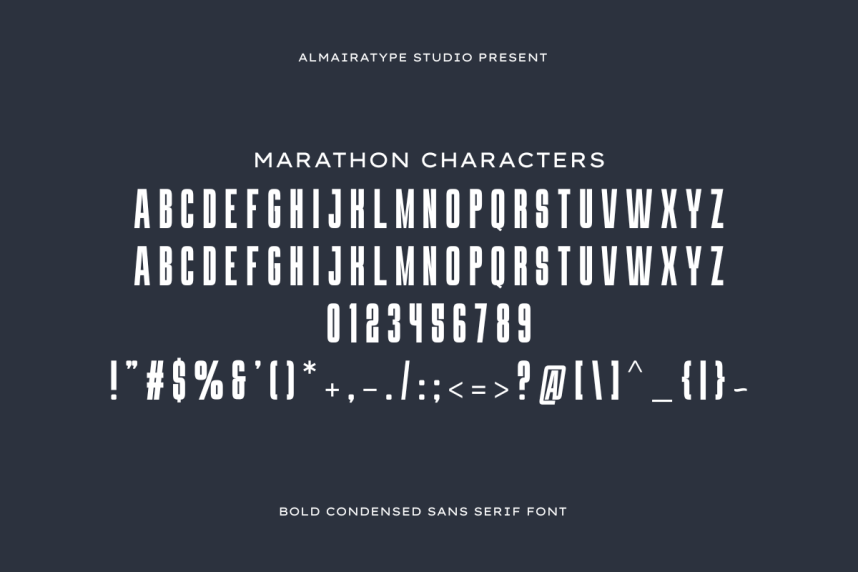
Marathon Font
Marathon Font is a bold and powerful Condensed Sans Serif font that embodies the spirit of speed, endurance, and modern athleticism. Designed for high-impact communication, its tall and solid structure commands immediate attention, making it an ideal choice for projects that require a strong and energetic presence. This typeface seamlessly bridges the gap between industrial strength and sleek contemporary design, offering a professional look for sports branding, fitness motivation posters, automotive industries, and cinematic titles. Whether you are crafting aggressive social media graphics, high-octane apparel designs, or standout logos, Marathon ensures maximum readability and a commanding visual impact. Its clean, sharp edges and condensed proportions provide a sophisticated yet rugged feel, making it an essential tool for any designer looking to convey momentum and authority. Elevate your creative work with the relentless and driven aesthetic of the Marathon typeface.